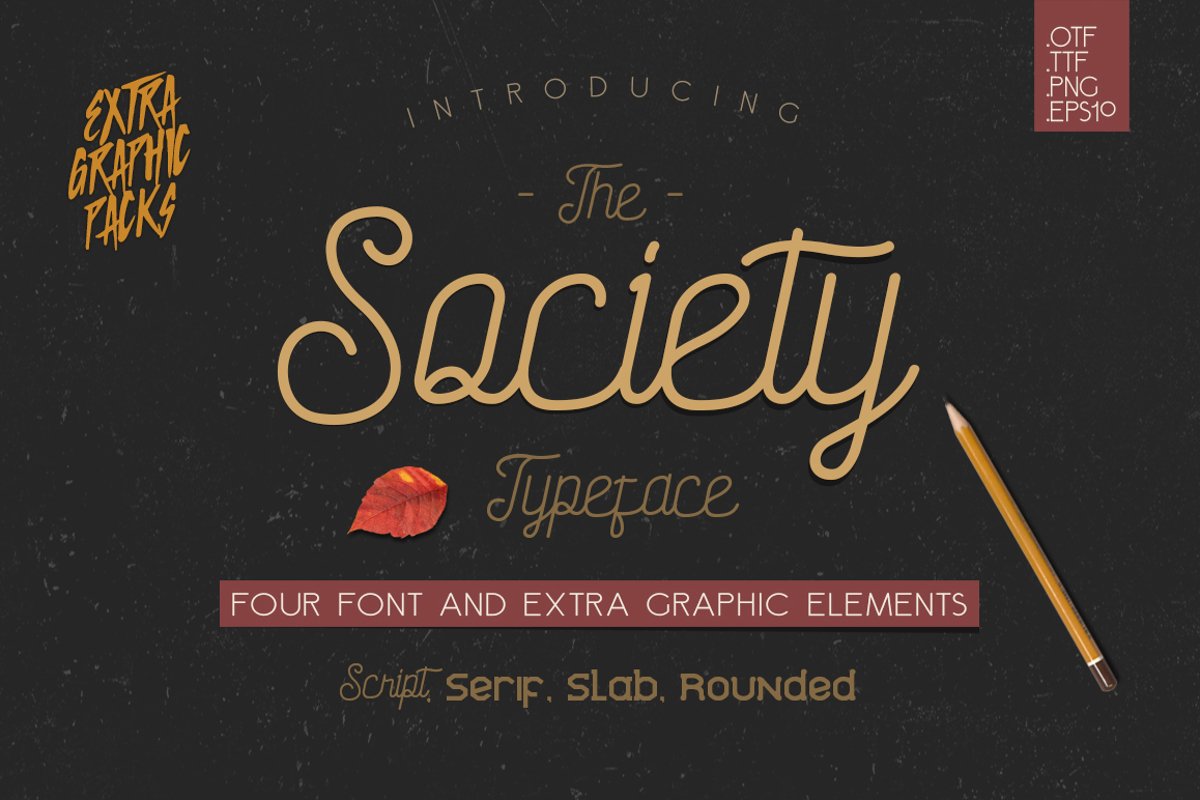
Society Typeface - 4th Font!
Introducing NEW Font just For you Only $15 with Extra Graphics Elements.a Society Typeface have 4 differents Fonts Script, Slab, Serif, Rounded. This font include multi language support and Extra Graphic Elements. Society Typeface can make your designs looking more good and easier to use/combaine for any graphics. Poster, Tittle, Cover book, Logo, and many more.include this file:
• Script, Slab, Serif & Rounded